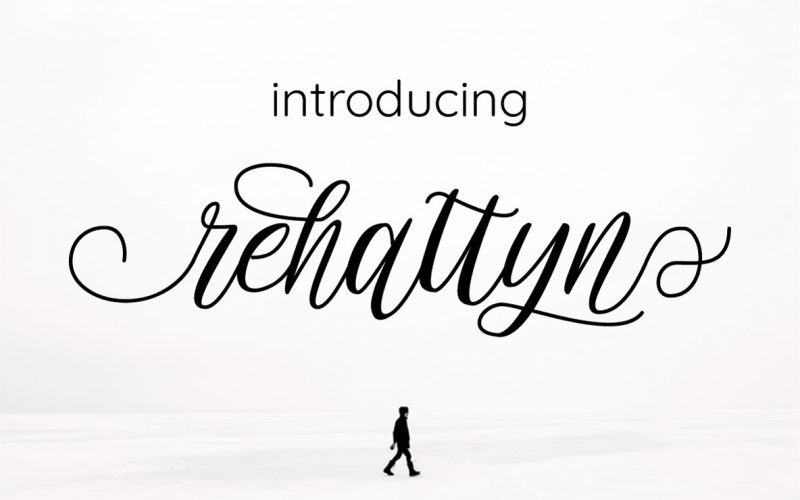
Rehattyn Calligraphy Font
Introduce, our last font, we called it rehattyn,
rehattyn is modern bouncing script font with hand-lettering touch,
It’s Perfect for greeting cards, quote, branding, stationery design, social media, packaging, magazine layouts, prints and more!